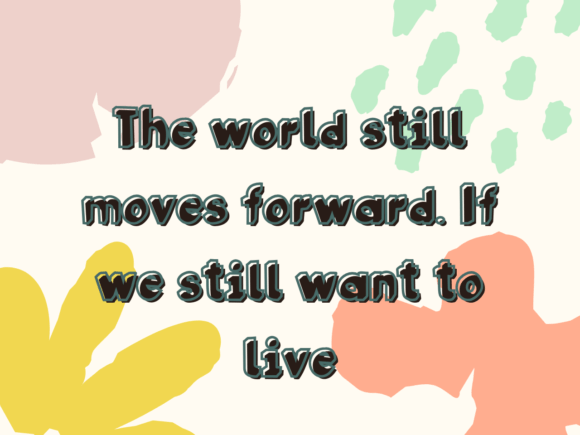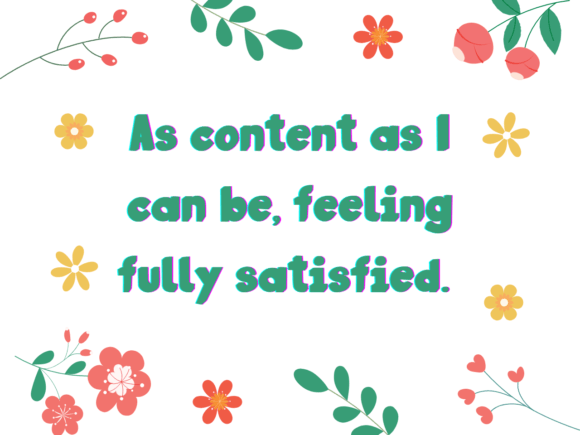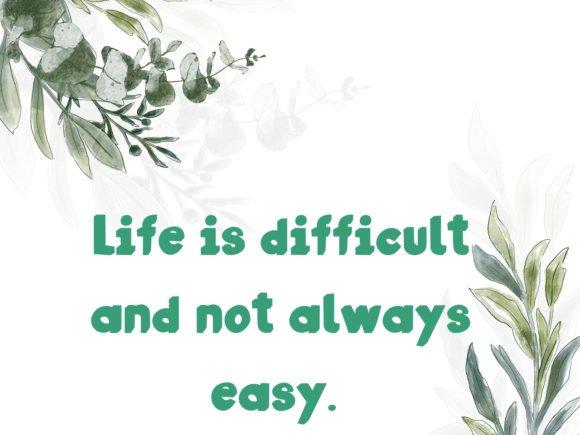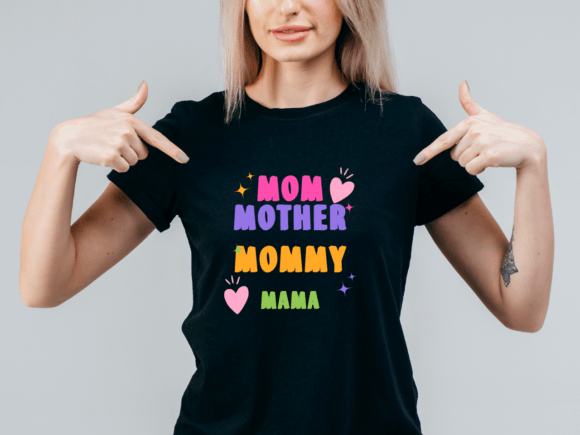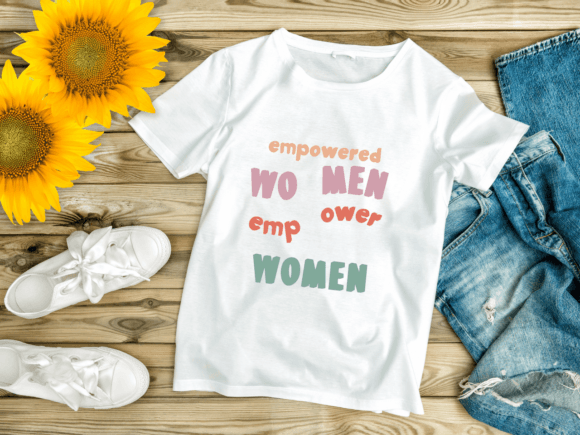
Introduction to Marcot Font
Have you ever been working on a creative project, pouring your heart and soul into it, only to feel like something’s missing? That’s where a high-quality design resource like the Marcot Font comes in – a fun and quirky display font that can add a unique touch to your work.
Whether you’re designing a logo, creating a social media graphic, or building a brand identity, the right font can make all the difference. And with the Marcot Font, you can enjoy a free download with a transparent background, giving you the flexibility to use it in any project you can imagine.
As a valuable resource for designers, the Marcot Font offers a fresh and playful look that’s sure to stand out. So why settle for a generic font when you can add some personality to your work with the Marcot Font?
Key Features of Marcot Font
- Unique, hand-drawn style with a transparent background, allowing for versatile design applications.
- Perfect for designers seeking a distinctive, creative font to elevate their work, with a size that is ideal for digital use.
Honest Review: Marcot Font
As a designer, I’m always on the lookout for high-quality design resources that can elevate my creative project. The Marcot Font caught my attention, and I decided to give it a try. Here’s my honest review.
- ✨ Unique and modern design style that’s perfect for contemporary projects.
- ✨ Wide range of weights and styles, making it versatile for different design applications.
- ✨ Transparent background, allowing for easy layering and manipulation in design software.
- ⚠️ Limited language support, which may be a concern for designers working on multilingual projects.
- ⚠️ Not ideal for projects requiring extremely large font sizes, as the font may become pixelated.
Overall, I’m impressed with the Marcot Font’s design quality and versatility. While it may have some limitations, it’s a solid addition to any designer’s toolkit. If you’re looking for a modern and high-quality font for your creative project, the Marcot Font is definitely worth checking out.
Marcot Font
Introduction to Marcot Font
Marcot Font is a versatile, high-quality design resource ideal for creative projects. This free download offers a transparent background, allowing for seamless integration into various design applications.
Tips for Getting the Most Out of Marcot Font
For optimal results, use Marcot Font on a transparent background to ensure seamless integration with your design.
Experiment with different font sizes, colors, and styles to achieve the desired effect.
Common Use Cases for Marcot Font
Marcot Font is ideal for:
1. Social media graphics and posts.
2. Blog and article titles.
3. Branding and marketing materials.